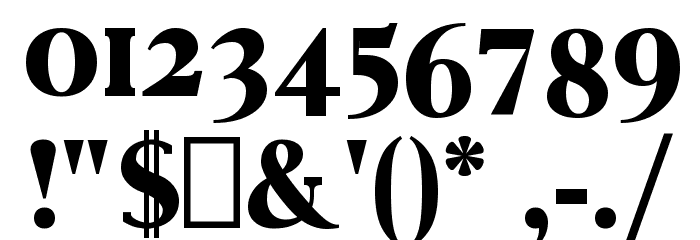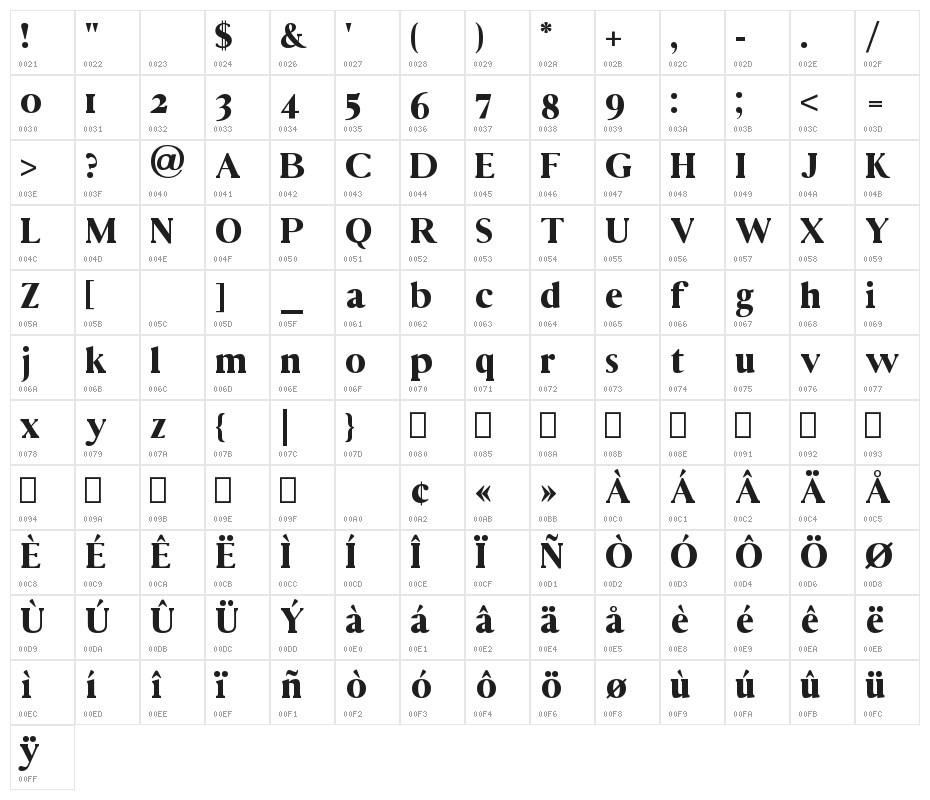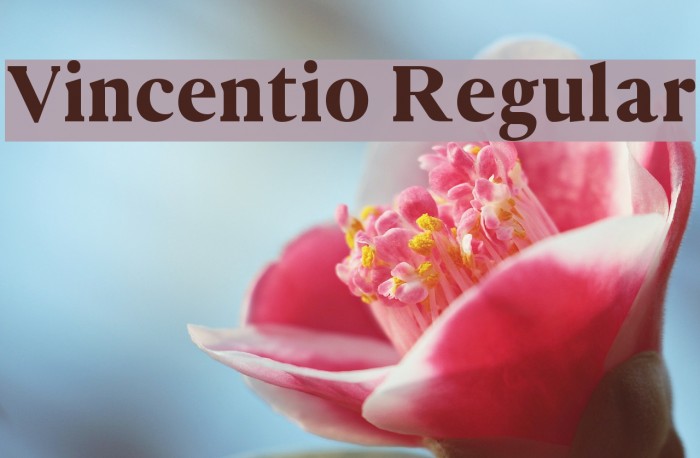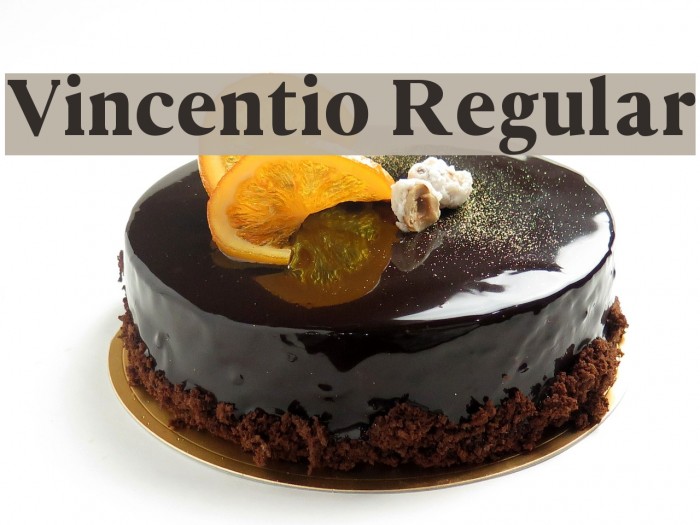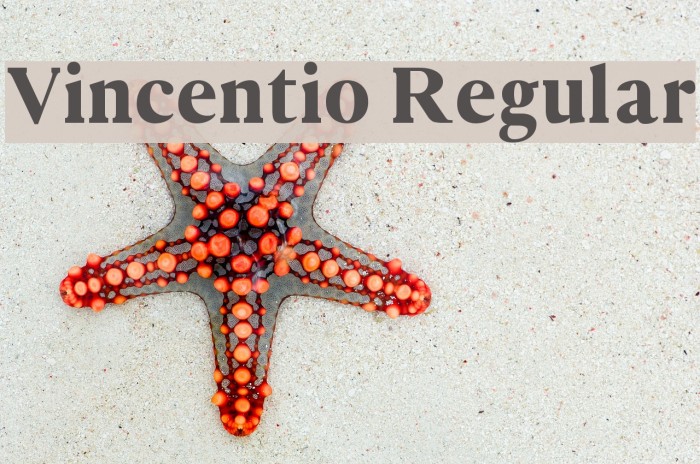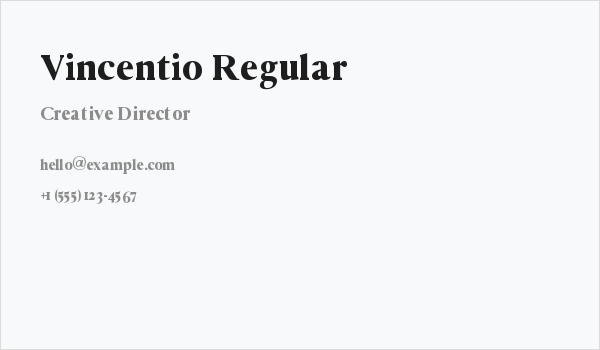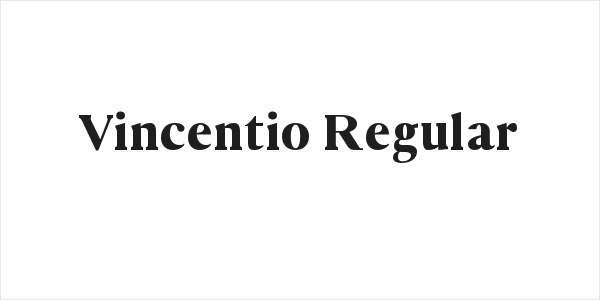
Vincentio Regular Font
Vincentio Regular Description
This font exhibits a classic serif style with strong, bold strokes and high contrast between thick and thin lines. The serifs are pronounced, giving it a traditional and authoritative appearance. The uppercase letters are stately and well-proportioned, while the lowercase letters maintain a consistent flow with slightly rounded edges. The numerals are clear and distinct, ensuring readability. Special characters are elegantly integrated, maintaining the overall aesthetic. This font is ideal for projects requiring a formal and sophisticated look, such as editorial design, book covers, and branding.
| Proposed Projects | Editorial design, book covers, branding, formal invitations, and corporate materials. |